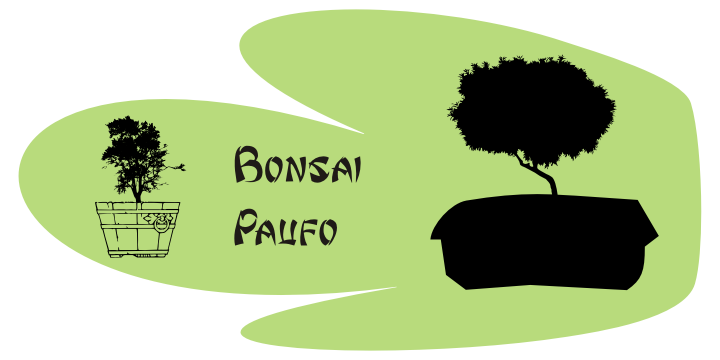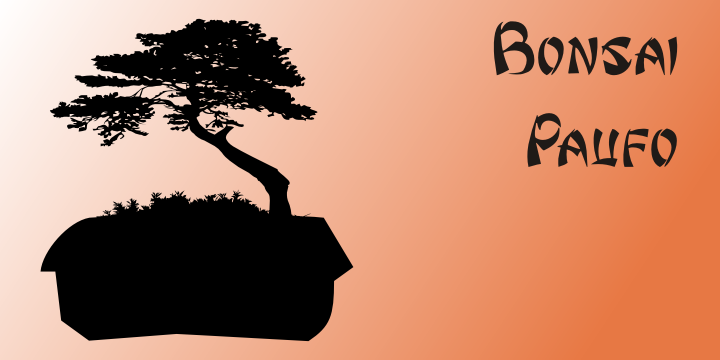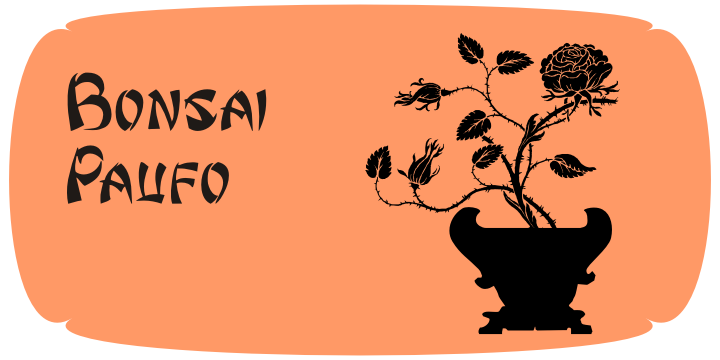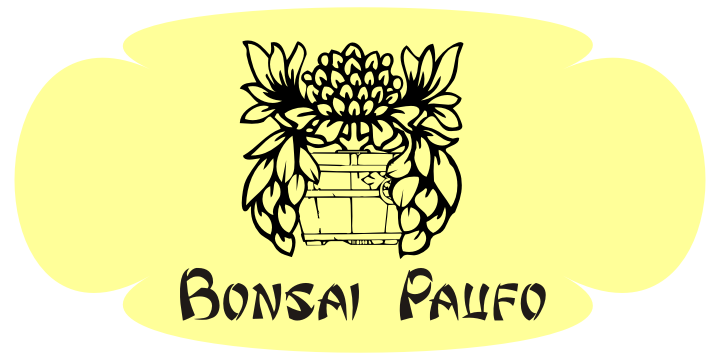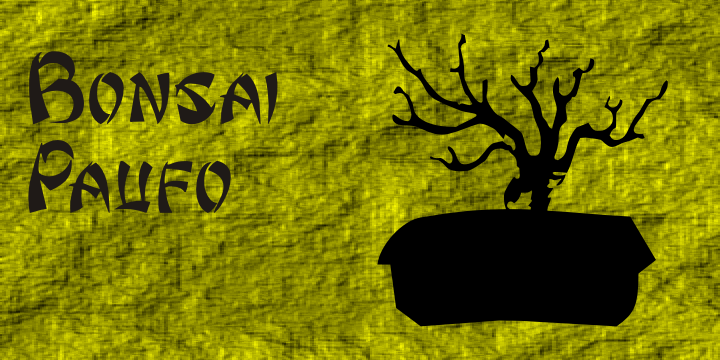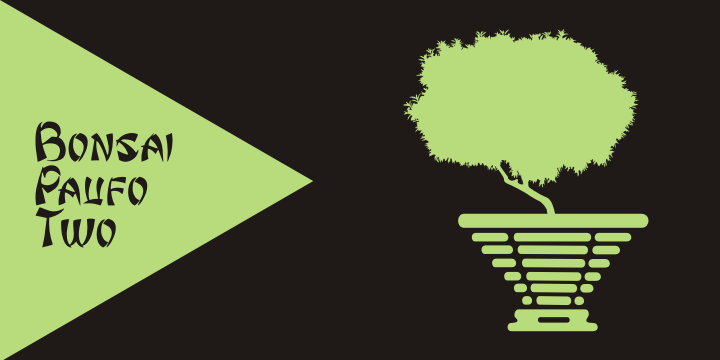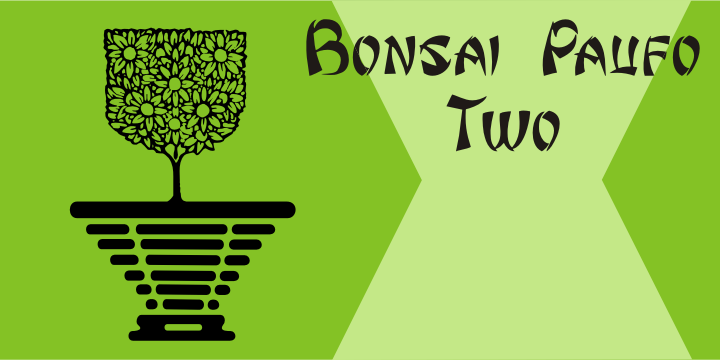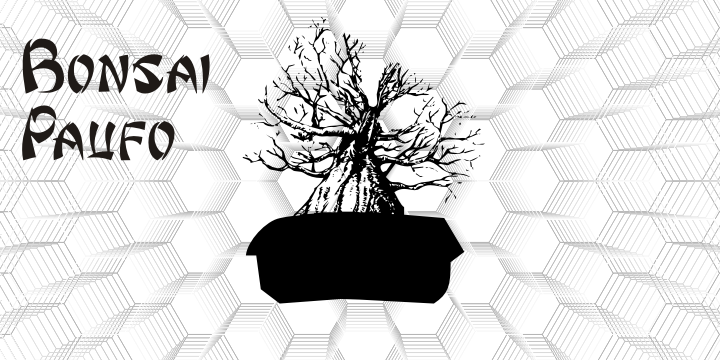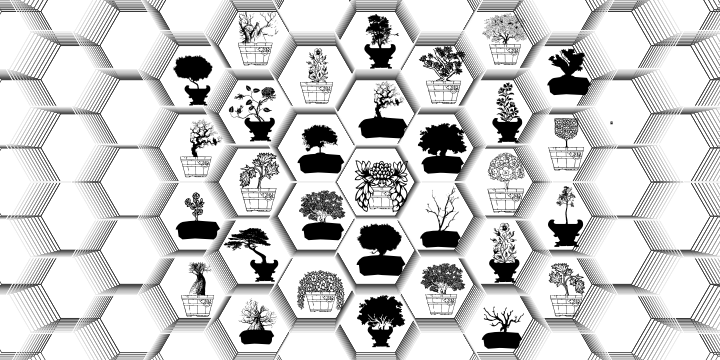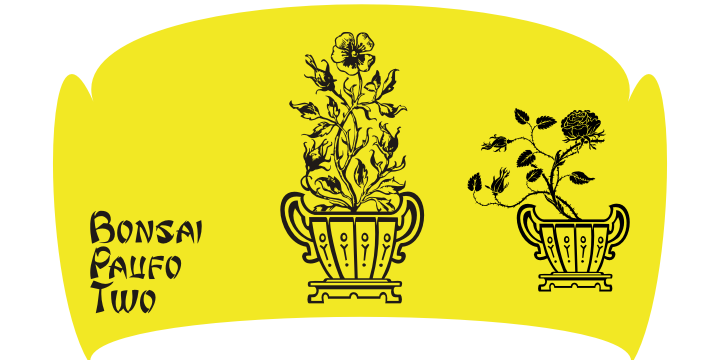
Bonsai Paufo
Designed by Paulo W, Bonsai Paufo is a dingbat font family published by Intellecta Design.
Bonsai Paufo are a collection of dingbats fonts inspired in the ancient art of Bonsai.
A beautiful work with organic forms and sensibility with the taste of the vegetal world, by Chyrllene K,